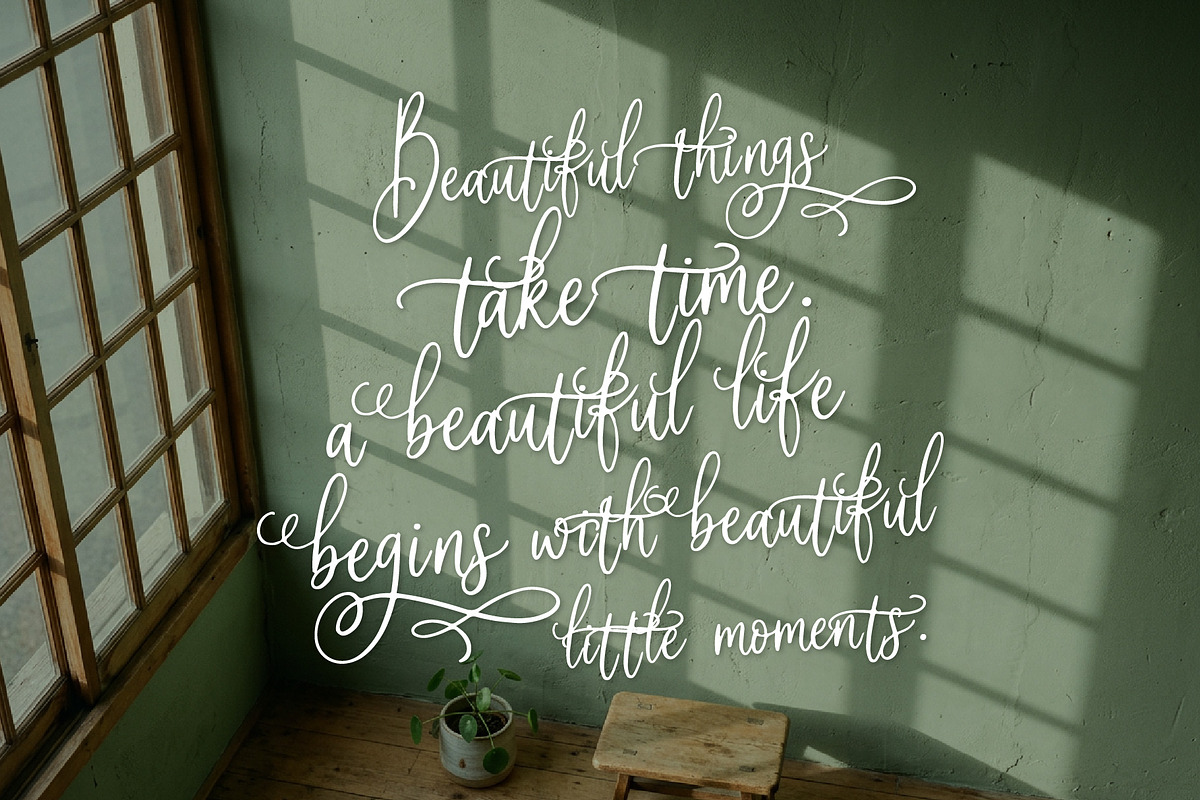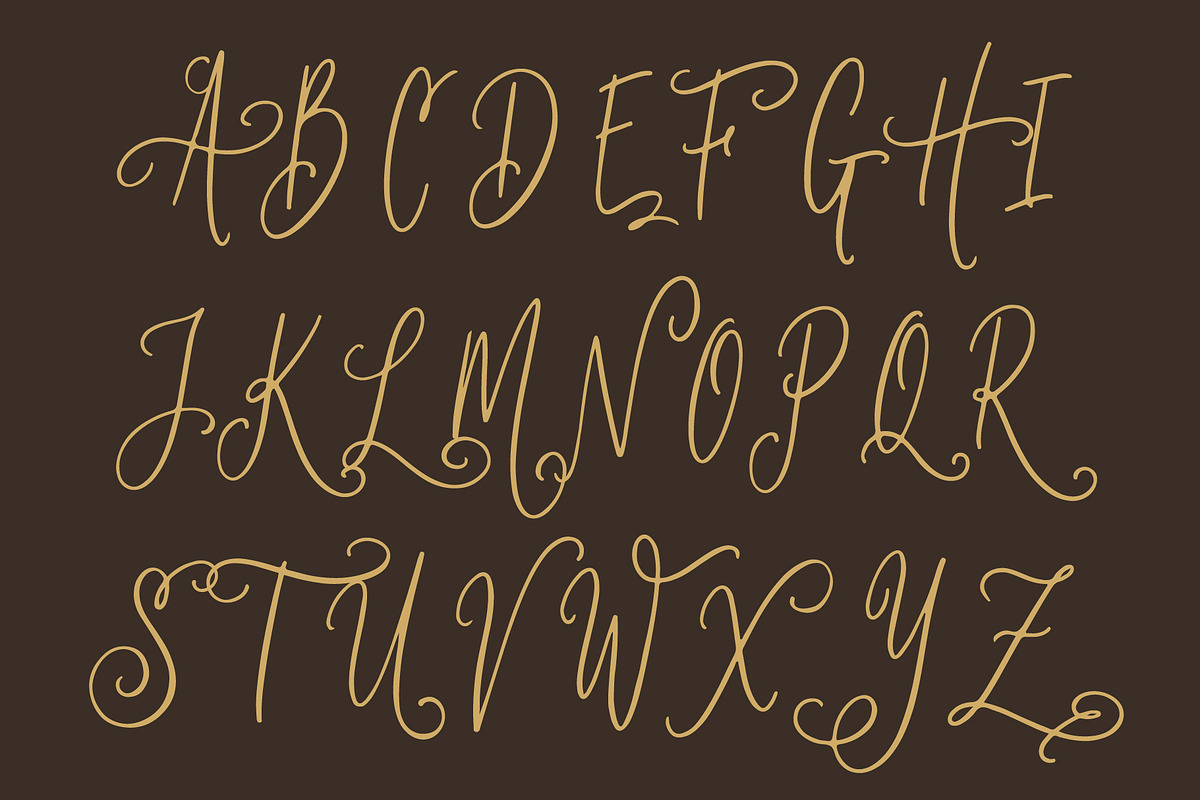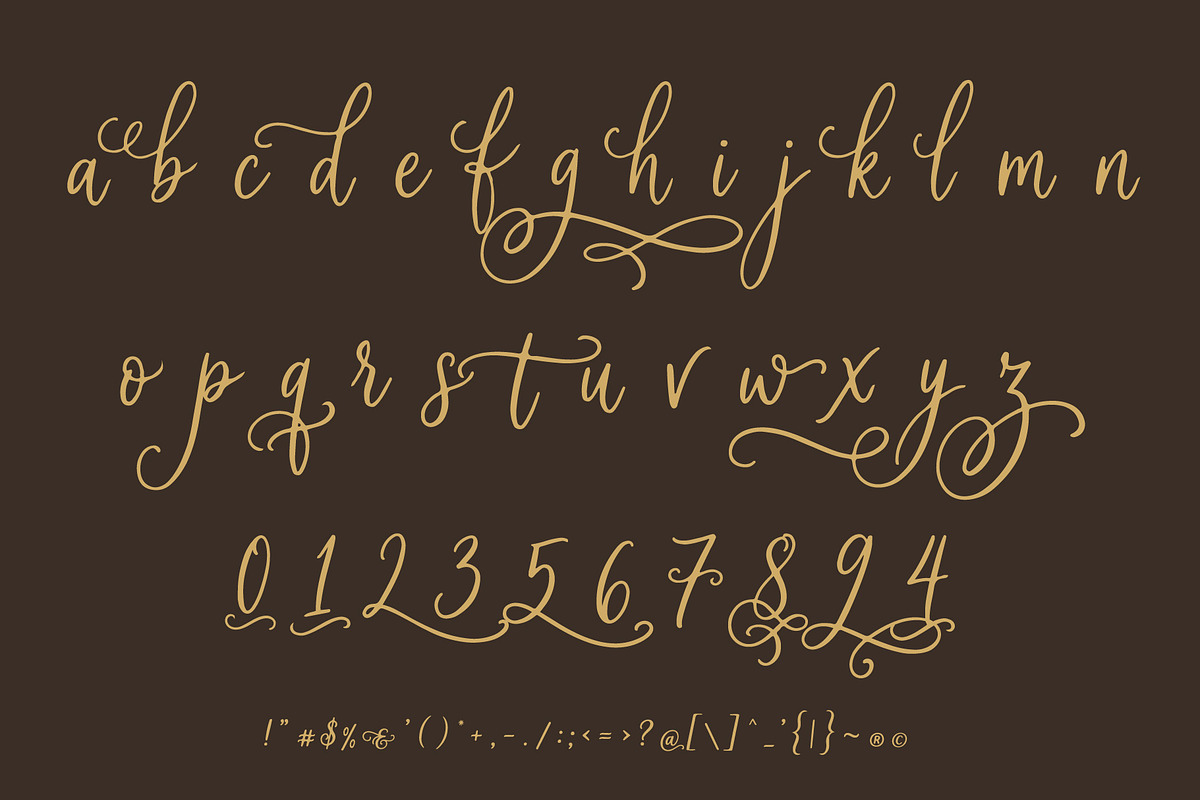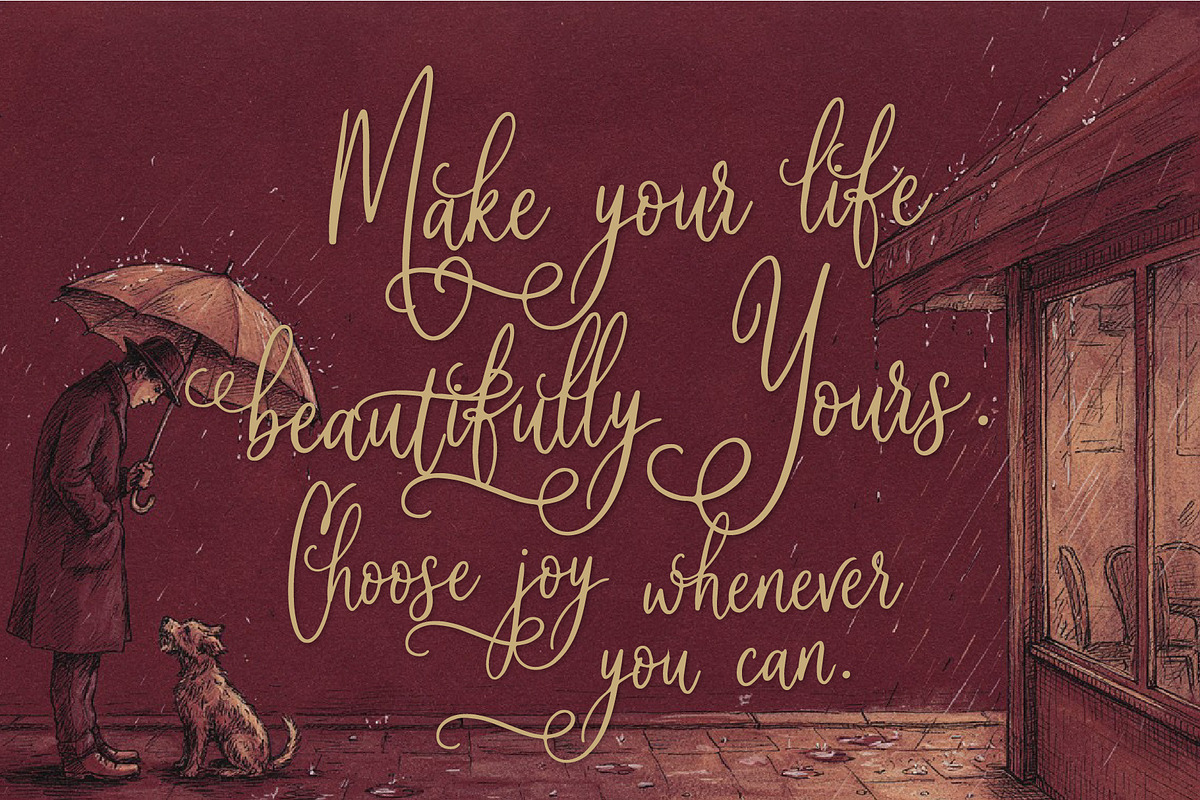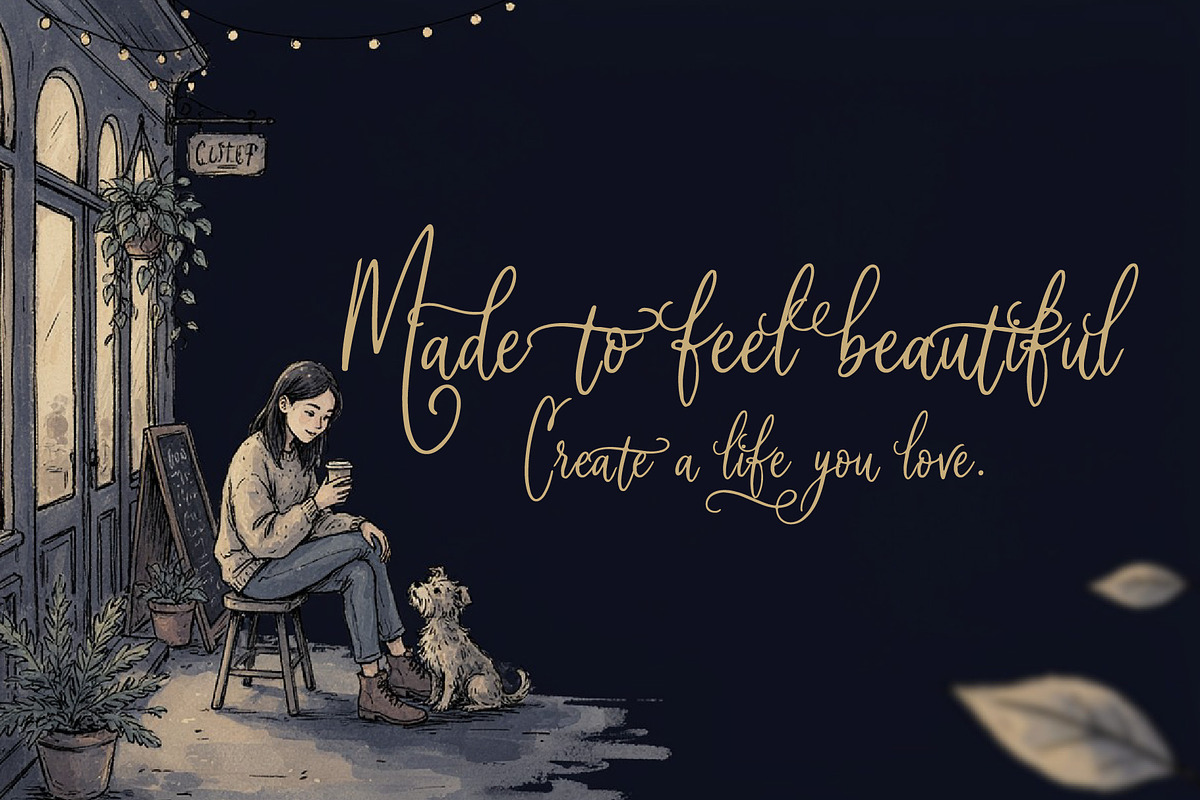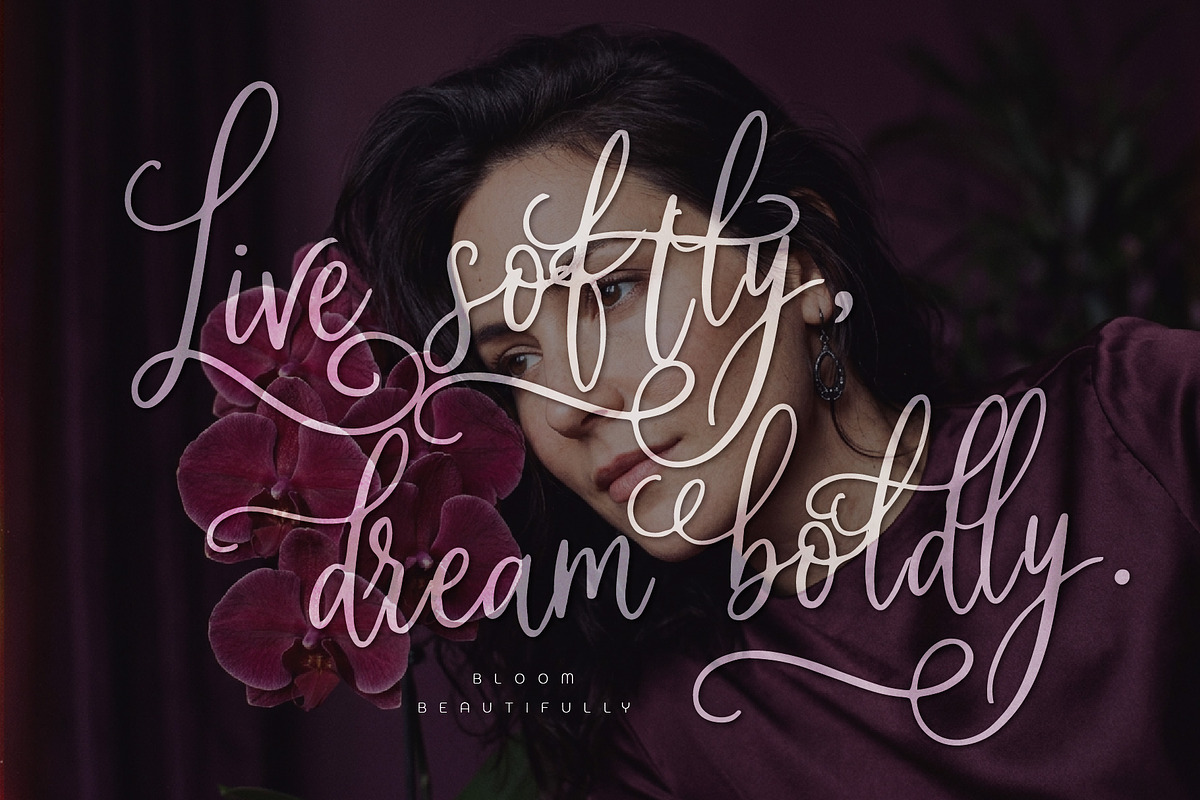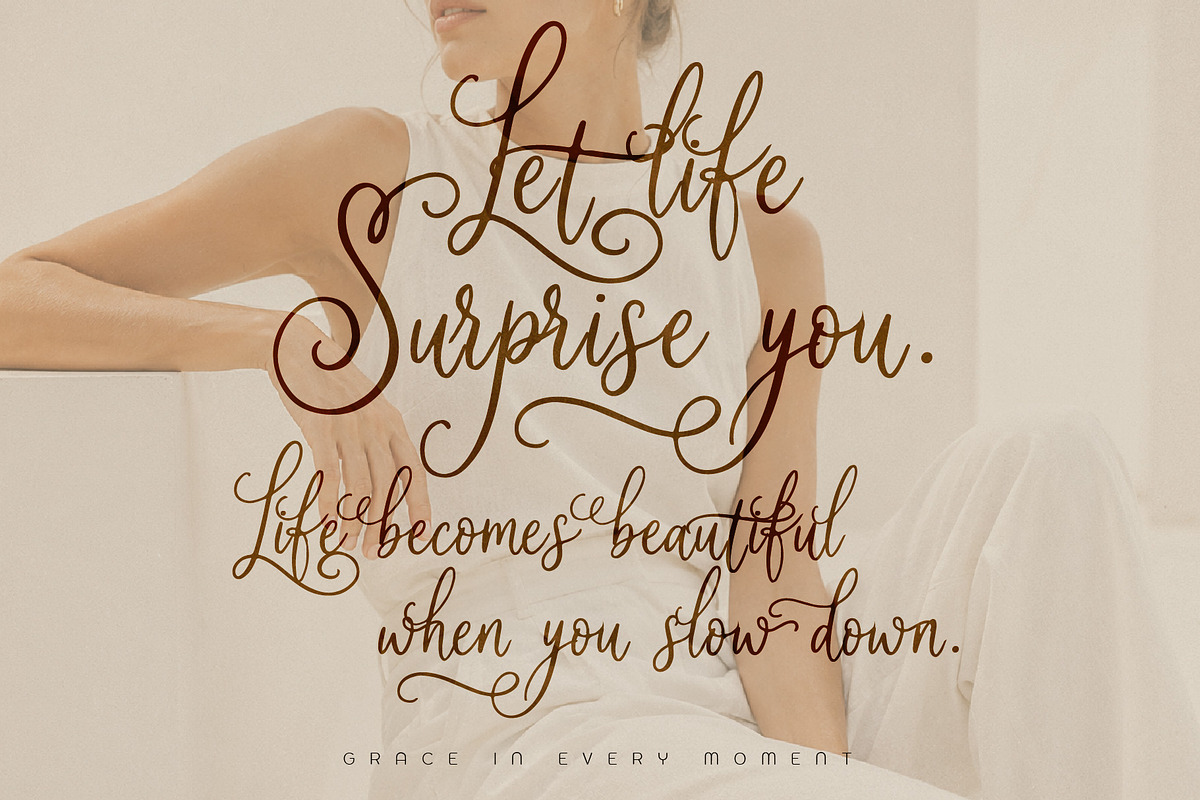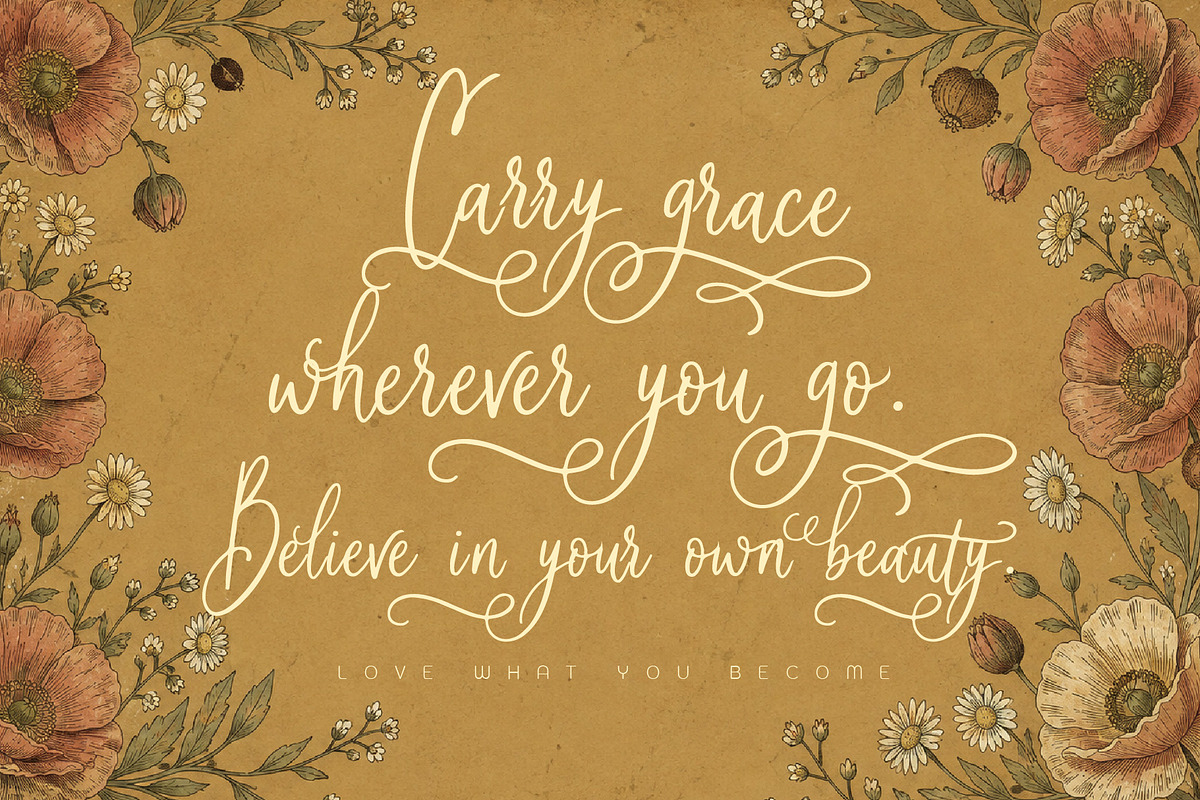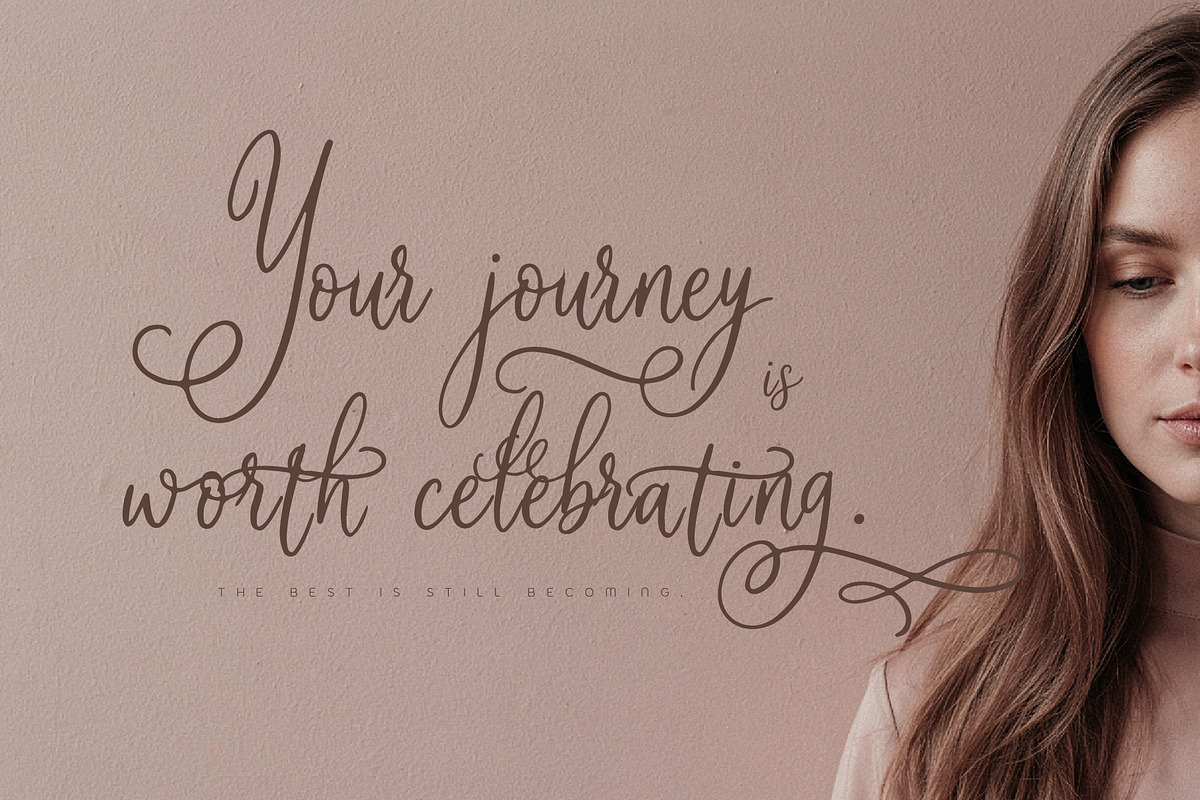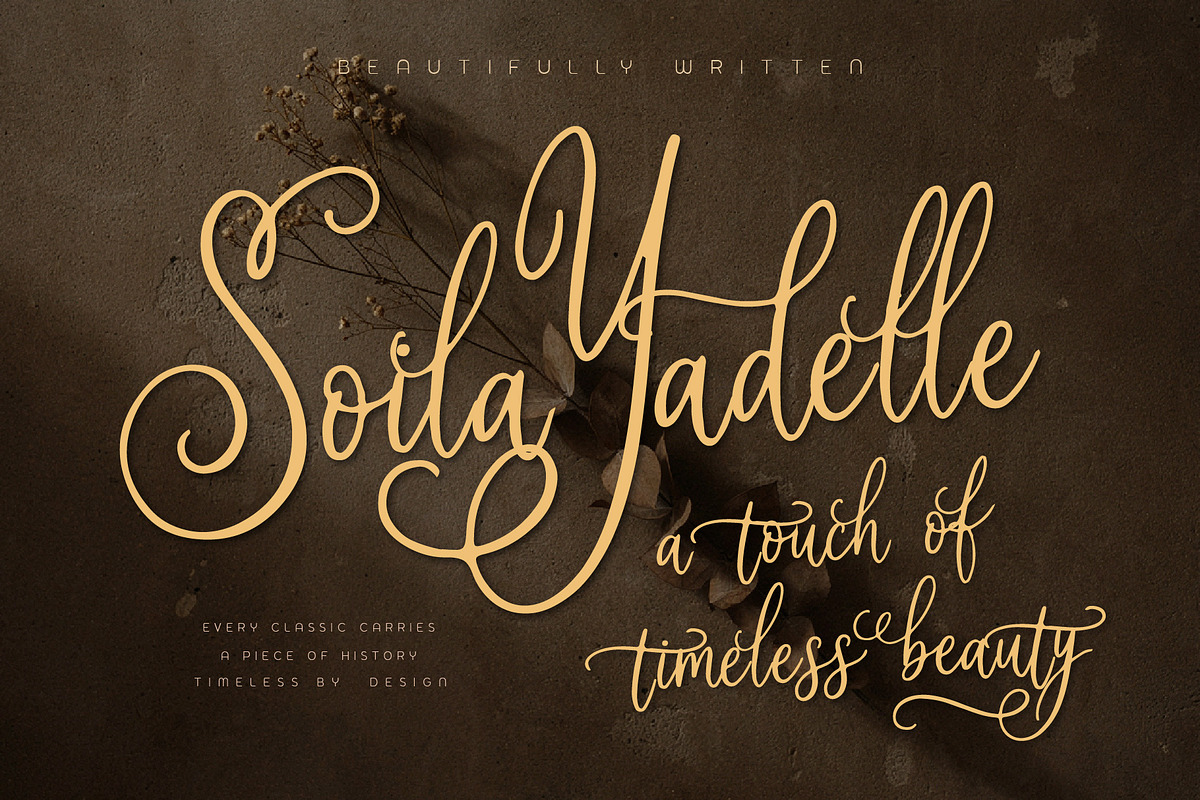
Soila Yadelle Elegant Curves Script
Soila Yadelle is an elegant feminine script designed with graceful curves, flowing strokes, and beautiful decorative swashes. Its refined handwritten character adds a soft, luxurious, and romantic touch to every word.
With its delicate movement and expressive flourishes, Soila Yadelle feels effortlessly beautiful while remaining versatile and sophisticated. Perfect for logos, fashion and beauty branding, wedding invitations, stationery, packaging, quotes, editorial designs, social media, and romantic lifestyle projects.
A graceful typeface for designs that want to feel feminine, elegant, timeless, and beautifully personal.